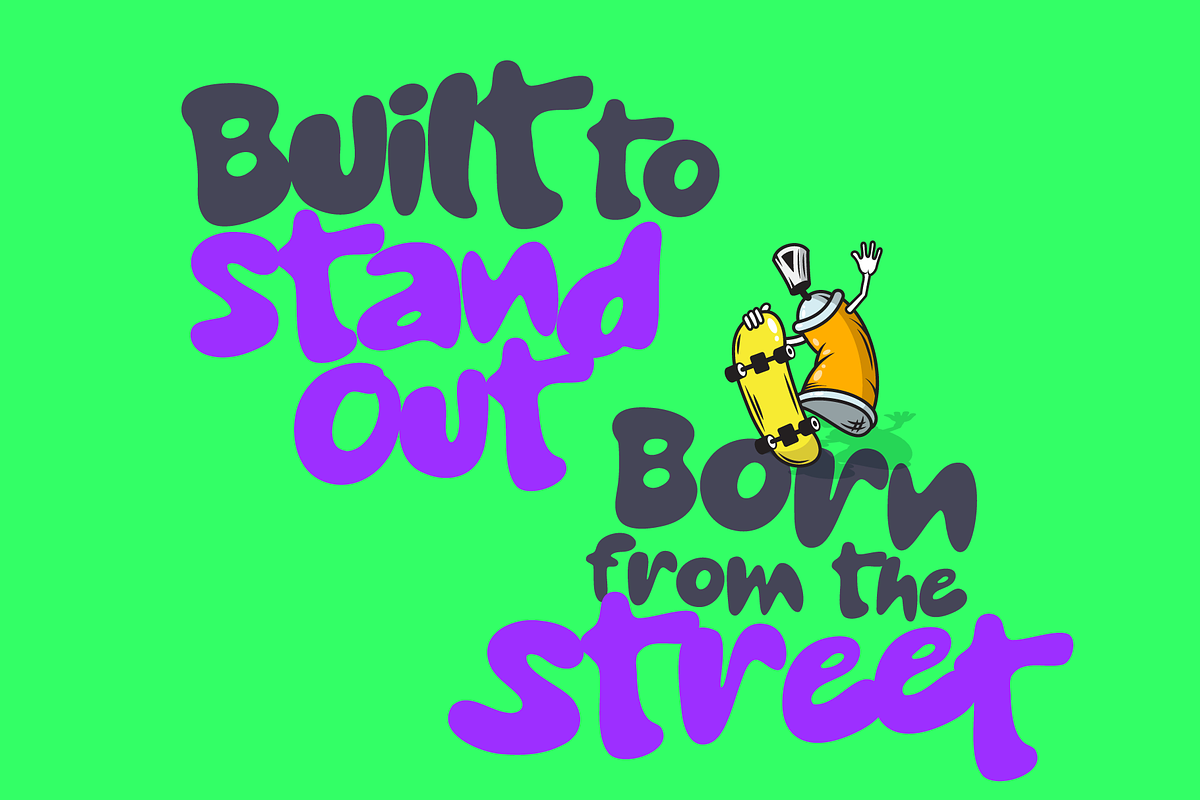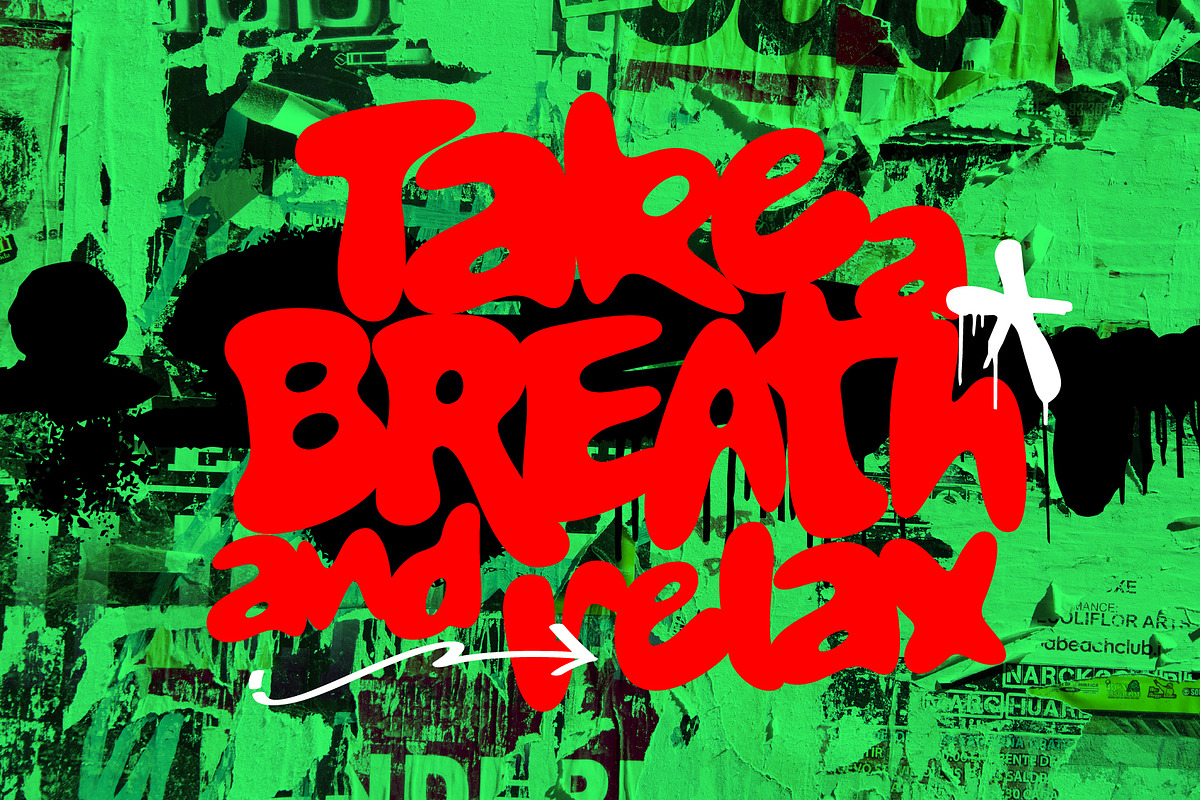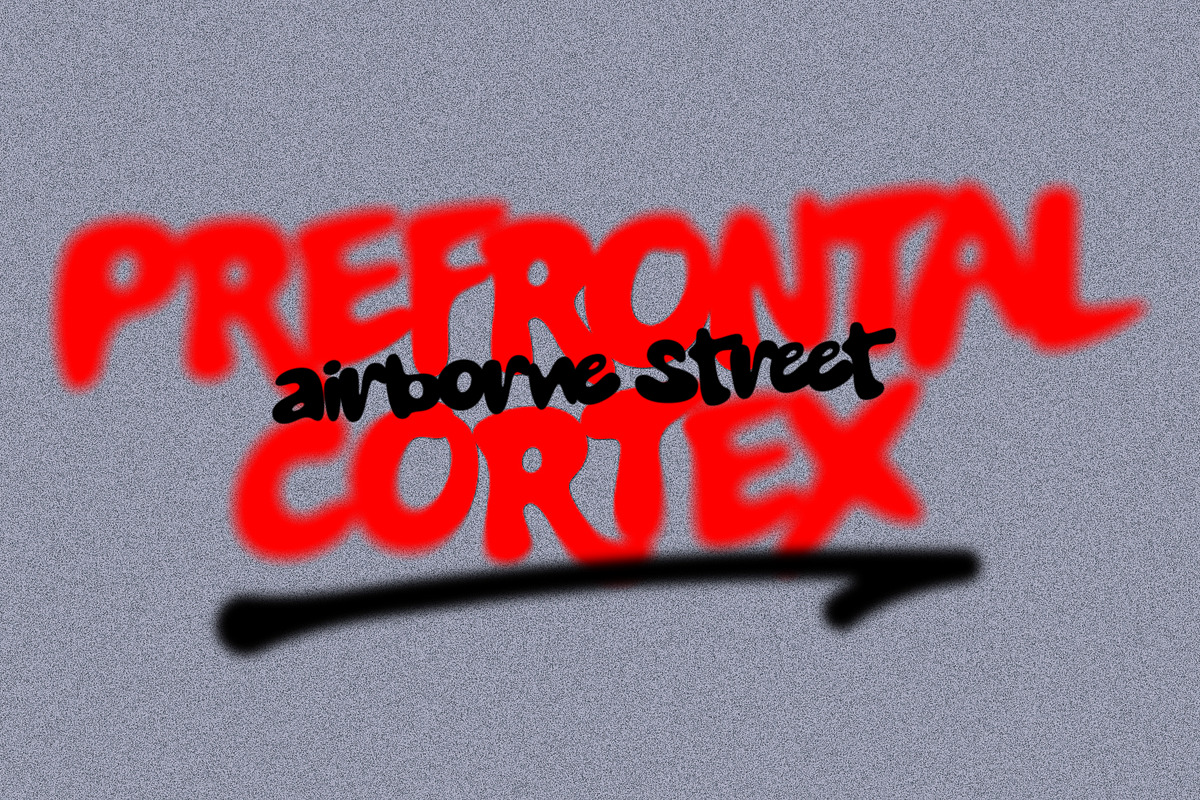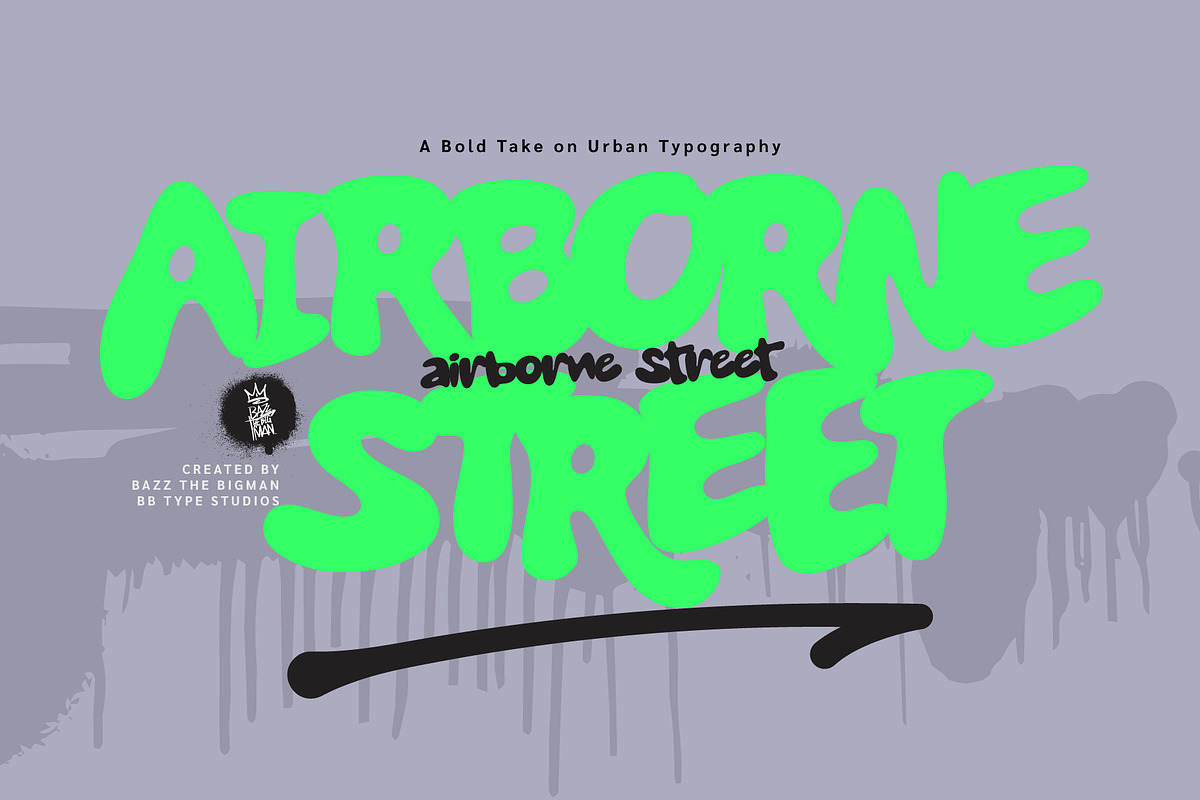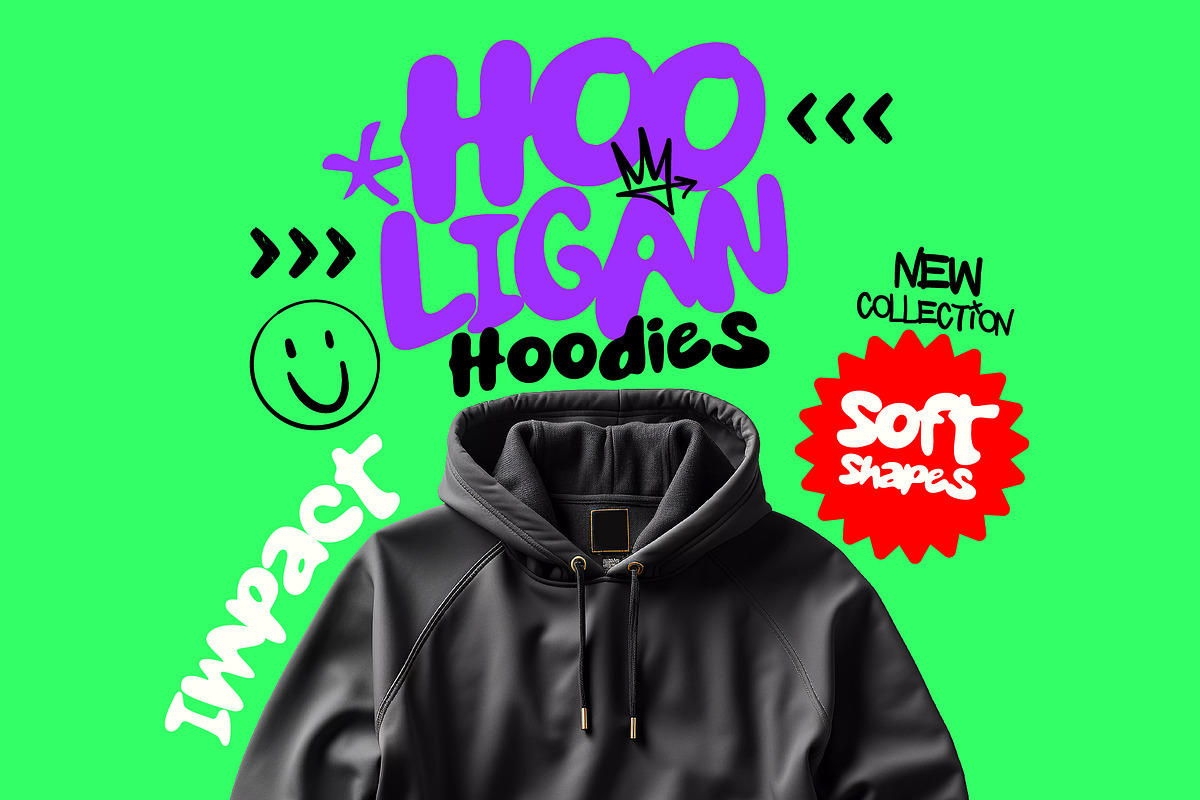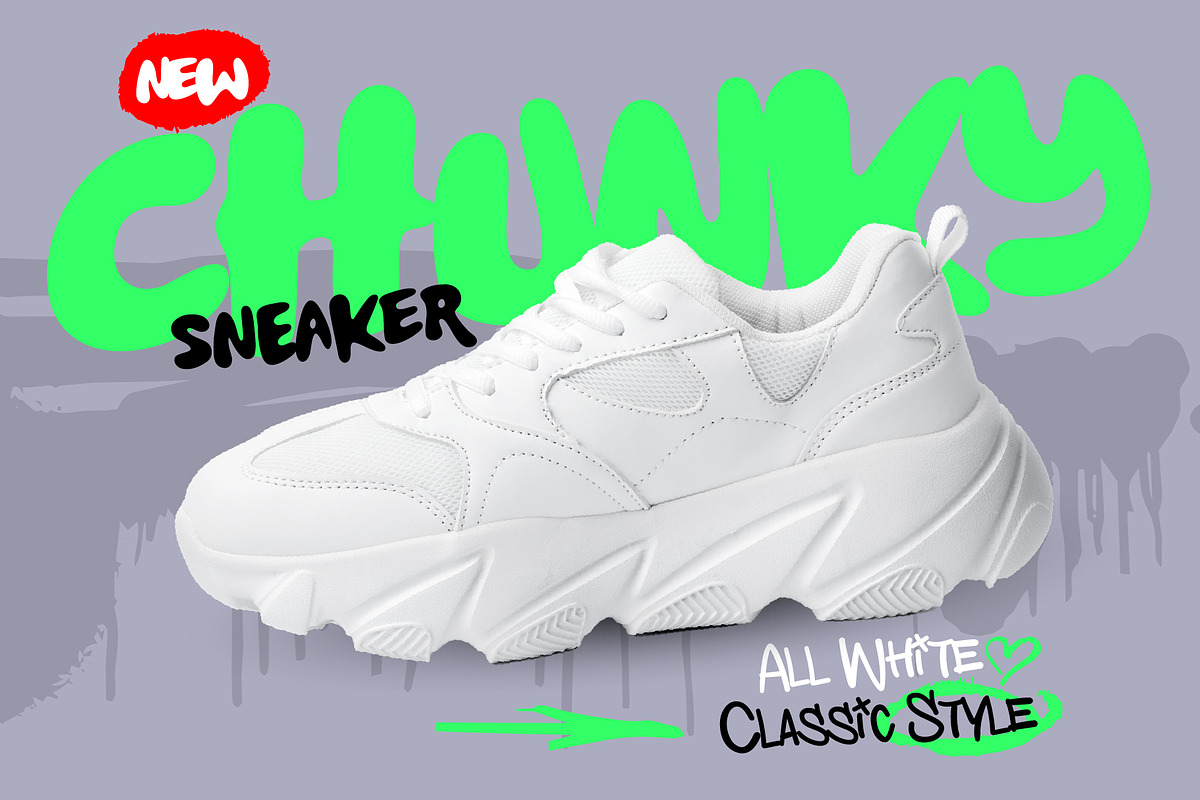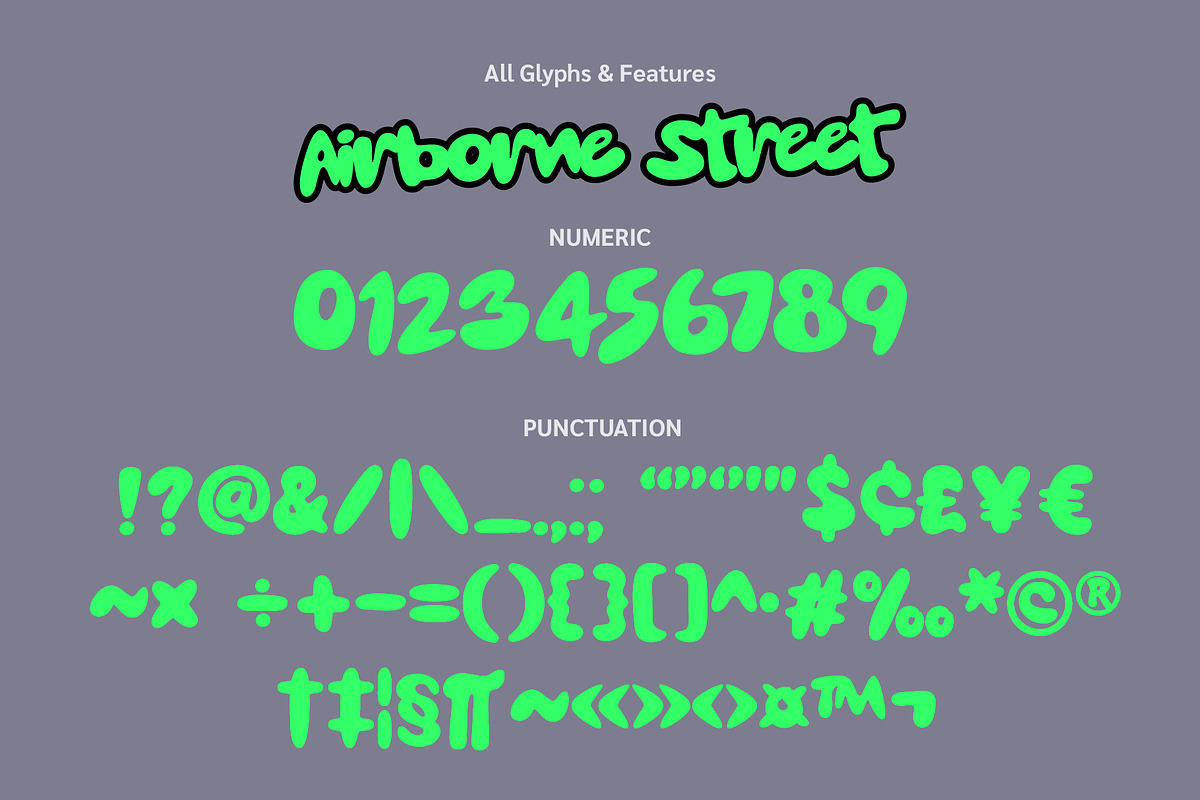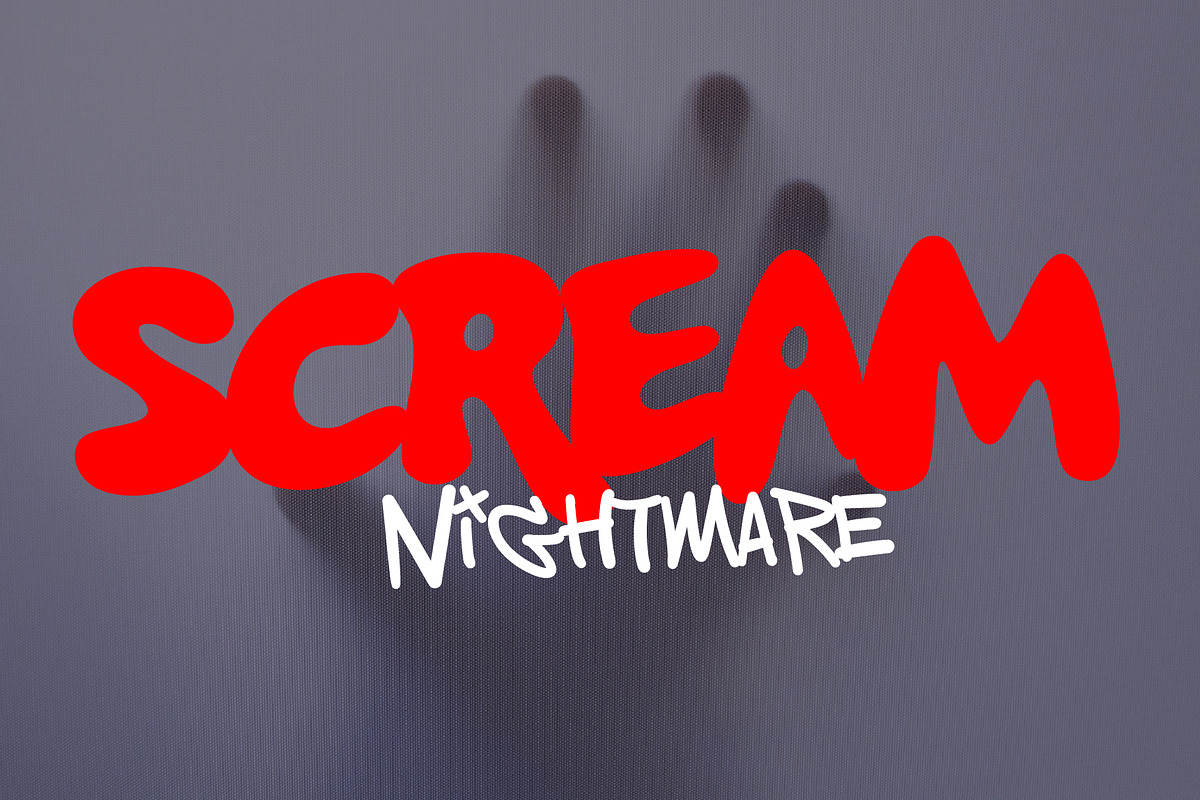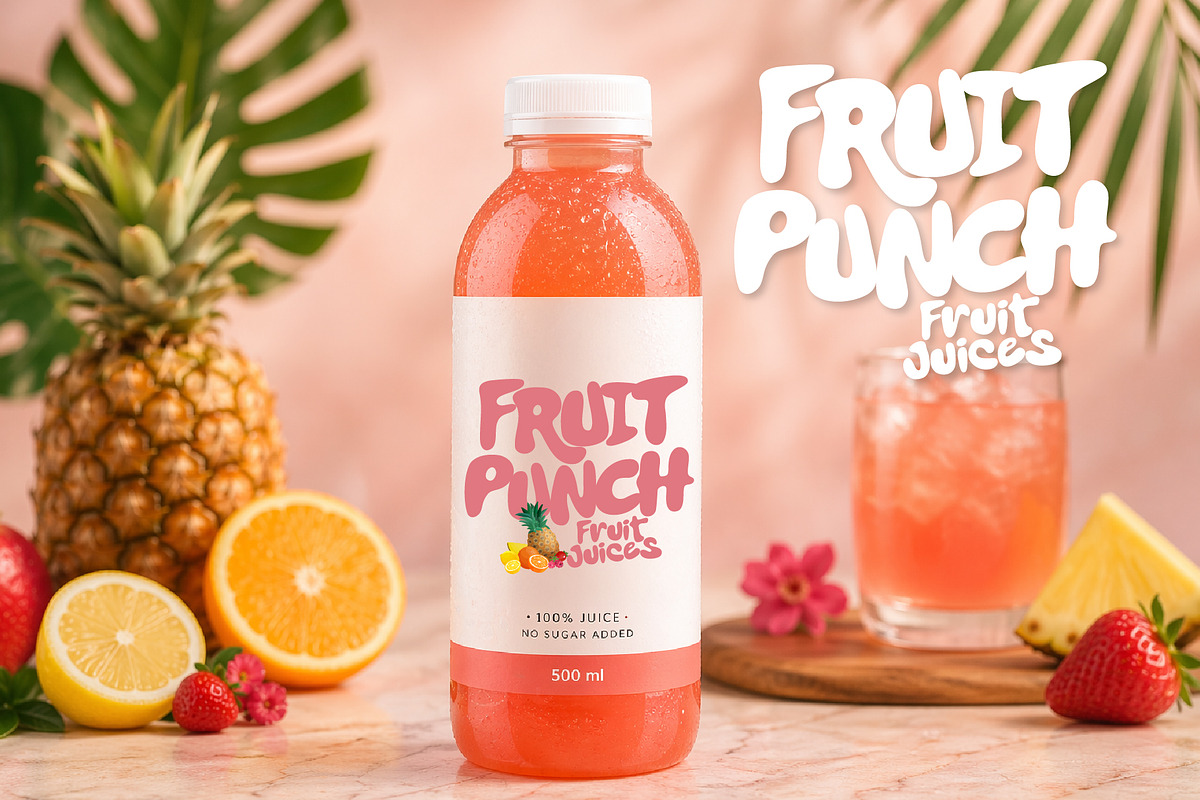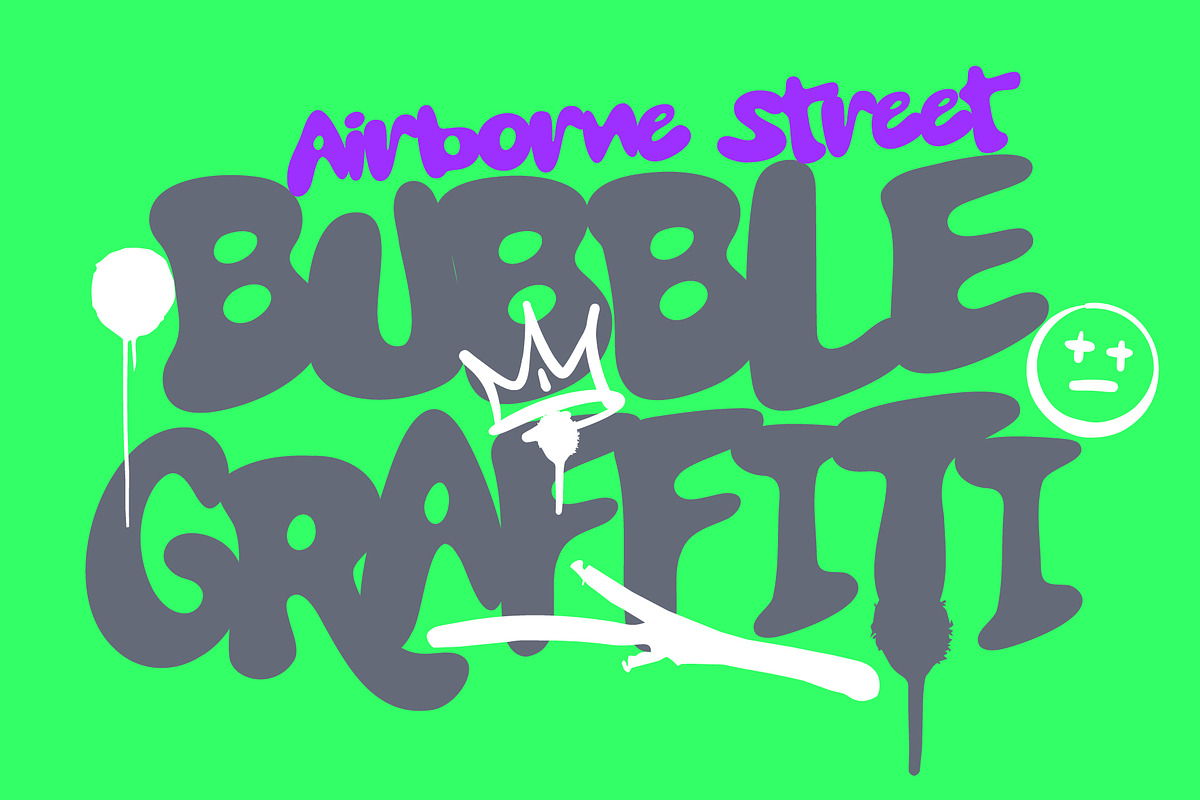
Airborne Street
Airborne Street is a bold bubble graffiti font built for designers who want their work to stand out loud and unapologetic.
With its soft, rounded shapes and strong visual presence, this font blends playful curves with raw street attitude — making it perfect for eye-catching designs that demand attention.
Whether you're working on streetwear branding, posters, social media graphics, album covers, or packaging, Airborne Street delivers a unique urban vibe that feels both fun and powerful.
This font is designed to be expressive, energetic, and versatile — ideal for projects that need personality and impact in every letter.
✨ Perfect for: • Branding • Posters & album covers • Social media graphics • Packaging design • Youth & urban-themed projects
Let your design speak louder.